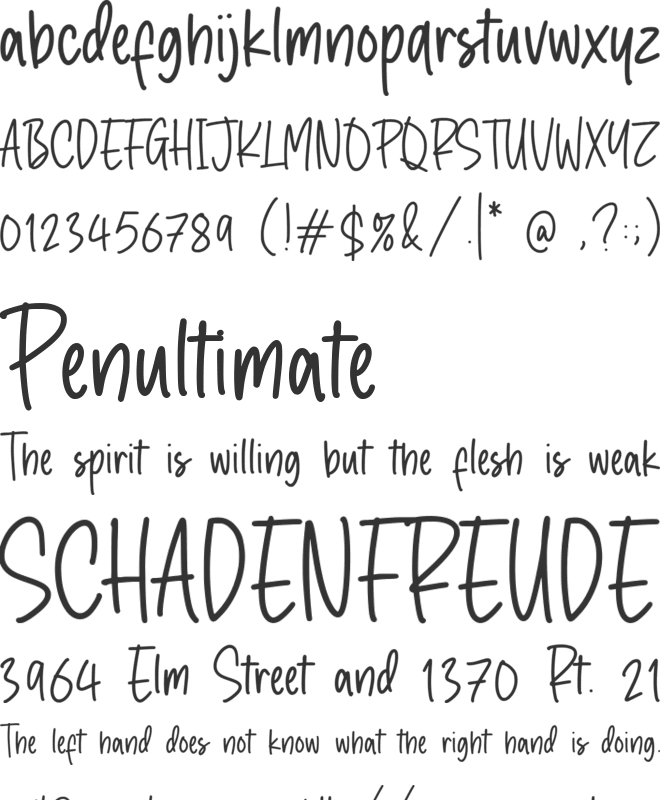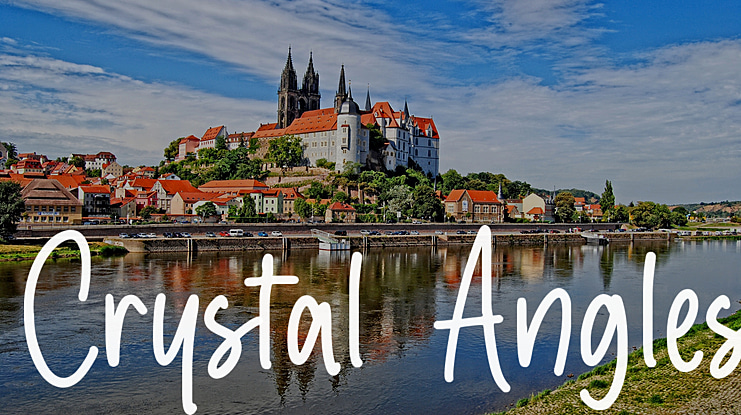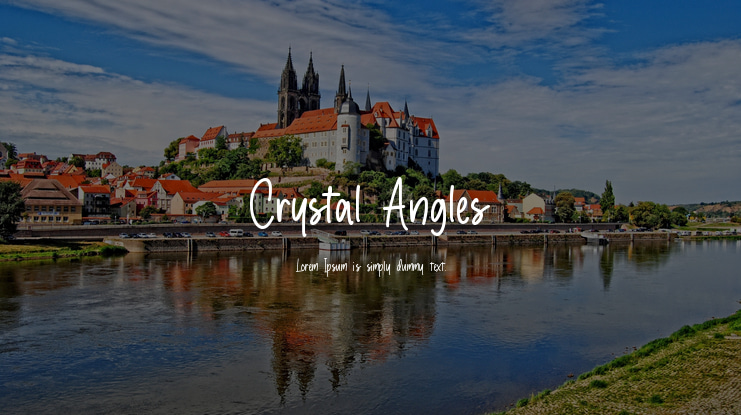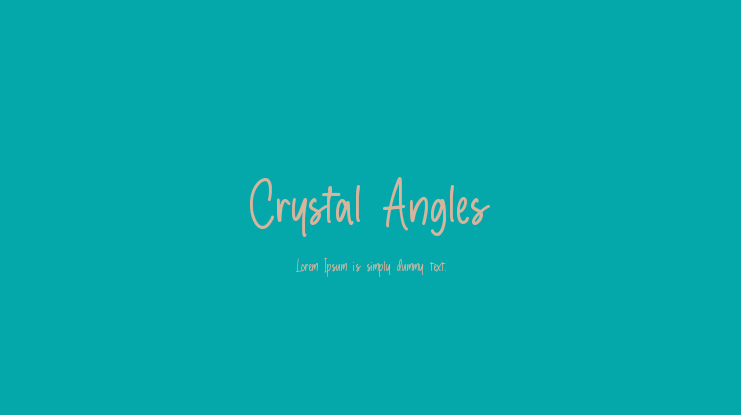
Crystal Angles Font
Balpirick Studio
Introducing by Balpirick Studio.
Proudly Present, Crystal Angles Font.
Crystal Angles is a Modern Monoline Font.
Crystal Angles is perfect for product packaging, branding project, megazine, social media, wedding, or just used to express words above the background.
Crystal Angles font preview